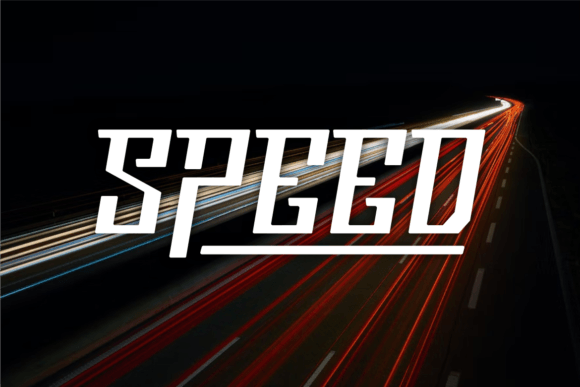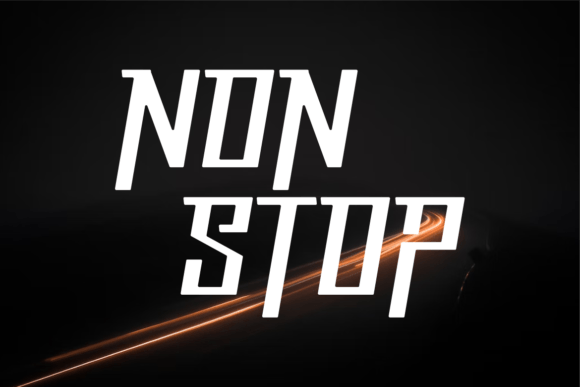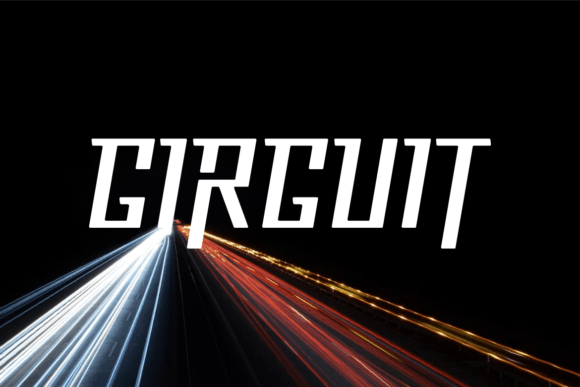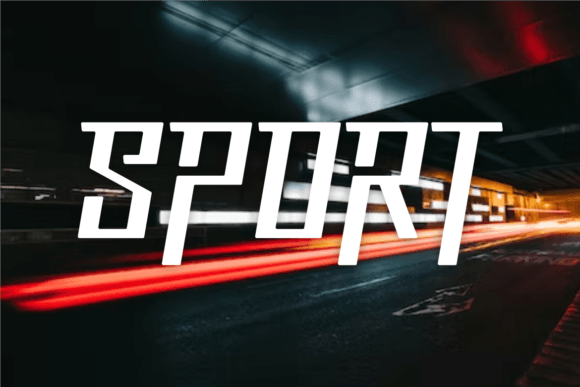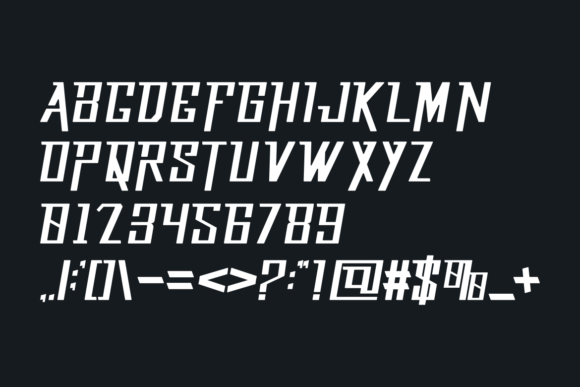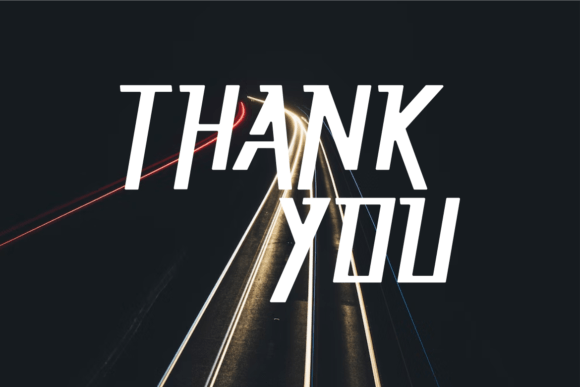
Bilgas Font
BILGAS FONT SPECIMEN
Bilgas is a modern slab serif font that feels unique, sporty, and cool. This font is perfectly suited for a wide variety of projects, such as signature, stationery, logo, wedding, typography quotes, magazine or book covers, website headers, clothing, branding, packaging design, and more.